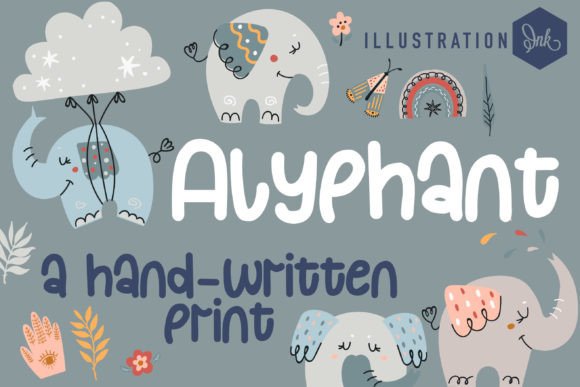
Embark on a delightful journey into the world of Alyphant Font, a captivating script font family designed to ignite your creative endeavors. Its enchanting handwritten style evokes a sense of whimsy and youthful exuberance, reflecting the beauty of authentic penmanship. Dive into the world of Alyphant and discover a world of artistic expression that beckons you to unleash your imagination.
Unleash your inner artist with Alyphant, a font family that celebrates the beauty of authentic handwriting. Its charming strokes and playful curves bring a touch of elegance and personality to any design. Whether you're creating invitations, greeting cards, or social media posts, Alyphant's handwritten charm will captivate your audience.
Explore the possibilities with Alyphant, a versatile font family that caters to your diverse creative needs. Its casual, hand-written print adds a touch of individuality to your projects, reflecting your unique style and personality. From personal branding to wedding invitations, Alyphant's versatility knows no bounds.
Immerse yourself in the world of Alyphant, a font family that speaks to the heart. Its intricate details and organic flow make it more than just a font; it's an art form that evokes emotion and connection. Let Alyphant's delicate strokes touch your soul and inspire your designs to new heights of artistry. Embark on a creative voyage with Alyphant and discover the boundless possibilities that await you!